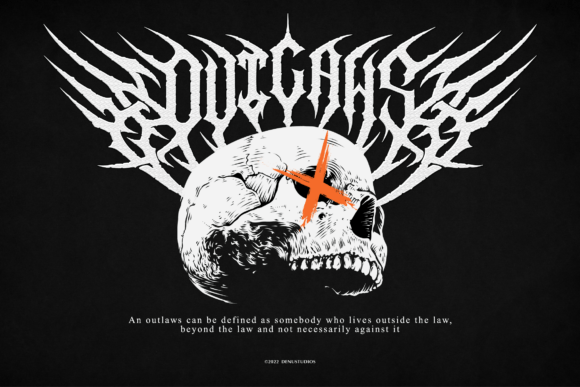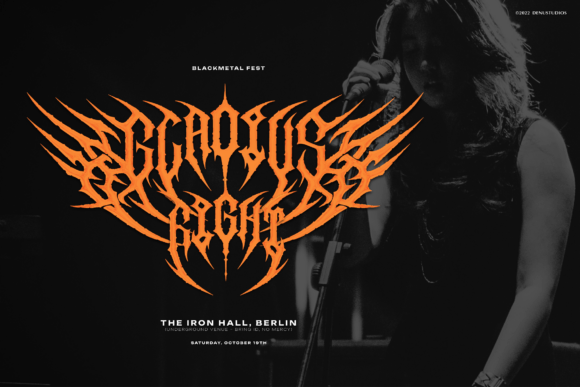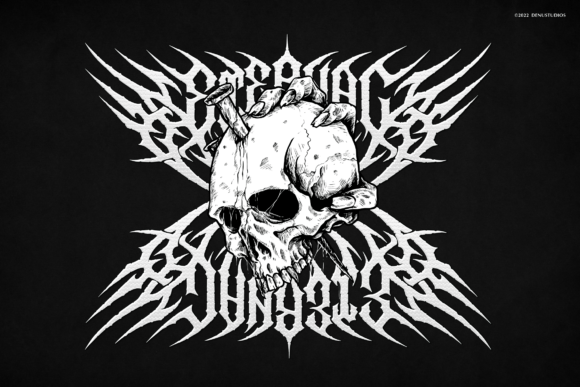
Blaizor Skyzo Font
Blaizor Skyzo is a black metal-inspired display font forged in chaos and sharpened with pure intensity. With jagged edges, claw-like extensions, and a flame-like symmetry, this font embodies darkness and aggression. Perfect for metal band logos, horror visuals, and extreme design projects, Blaizor Skyzo delivers a haunting, powerful presence that’s impossible to ignore.